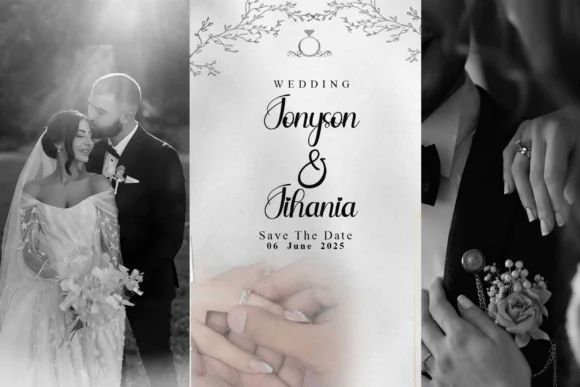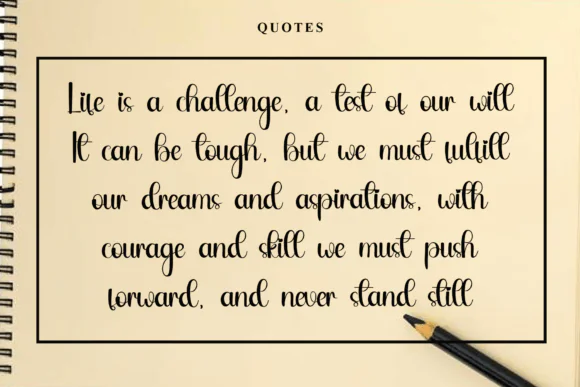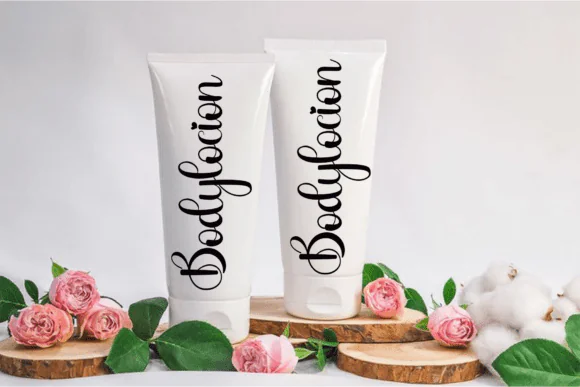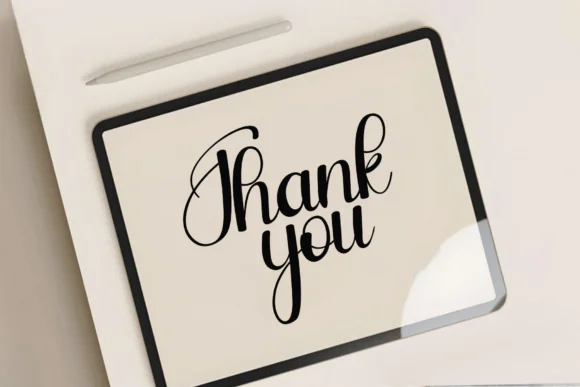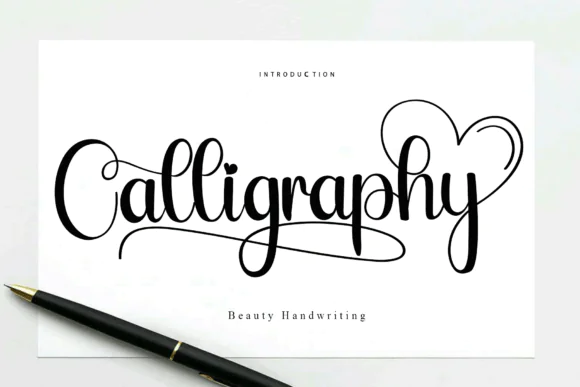
Calligraphy Font | Sweet Cursive Handwritten Script Typeface for Logos, Wedding Designs, Greeting Cards, Branding, Fashion & Elegant Projects
Create romantic, joyful, and elegant designs with Calligraphy Font, a sweet cursive handwritten typeface designed to add a soft and beautiful touch to your creative projects. Its gentle script style makes it perfect for designs that need a fancy, graceful, and personal handwritten feel while still keeping a casual and charming appearance.
This font is ideal for designers, wedding creators, boutique brands, small business owners, crafters, and digital product sellers who want to create stylish typography for both formal and everyday creative uses. Its cursive handwritten look works beautifully for branding, logos, wedding stationery, greeting cards, fashion designs, lookbooks, marketing promotions, social media graphics, invitations, product labels, and more.
Whether you are creating a romantic wedding design, an elegant brand logo, a feminine fashion graphic, or a charming greeting card, this font helps your project look polished, expressive, and memorable.
• Logo design
• Branding and business identity
• Wedding invitations
• Wedding stationery
• Greeting cards
• Fashion designs
• Lookbooks
• Marketing promotions
• Product labels
• Invitations and stationery
• Quote designs
• Cricut and Silhouette crafts
• Elegant digital artwork
Design Style:
Sweet, cursive, handwritten, calligraphy, gentle, joyful, romantic, fancy, elegant, casual, feminine, graceful, stylish, and charming.
Use Calligraphy Font to give your designs a soft handwritten beauty and create typography that feels romantic, elegant, and full of personality.